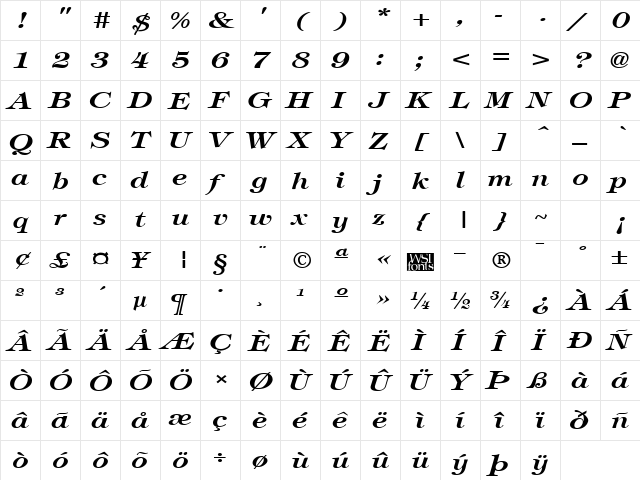
TimbrelBroad Bold Italic
Design Context for TimbrelBroad Typeface
TimbrelBroad offers clean, dependable letterforms without strong stylistic allegiance, making it a practical choice for designers who need flexibility. The dynamic lean of this cut emphasises speed and emphasis in any layout. Its bold stroke weight gives it real presence on the page.
Pro Tip: Try TimbrelBroad for annotation and caption copy alongside an upright companion — the contrast in angle creates a dynamic but ordered typographic system.